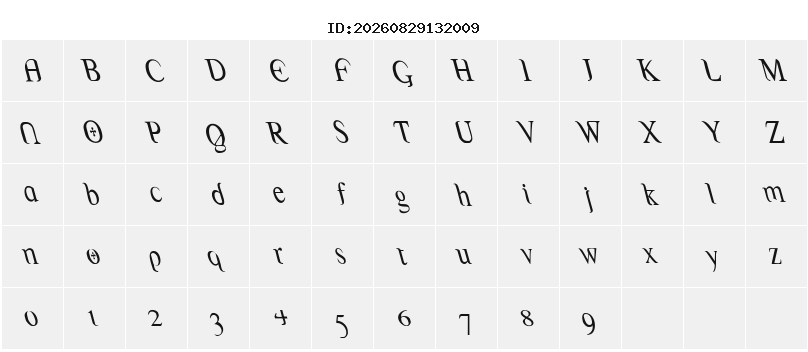
Thessaly Preview
• Font Name: Thessaly
• Full Font Name: ThessalyAntitalics
• PostScript Name: ThessalyAntitalics
About Thessaly.ttf
Thessaly.ttf is a modern, elegant sans-serif font designed for ultimate readability and visual harmony. Perfect for branding, headlines, web design, and print materials.